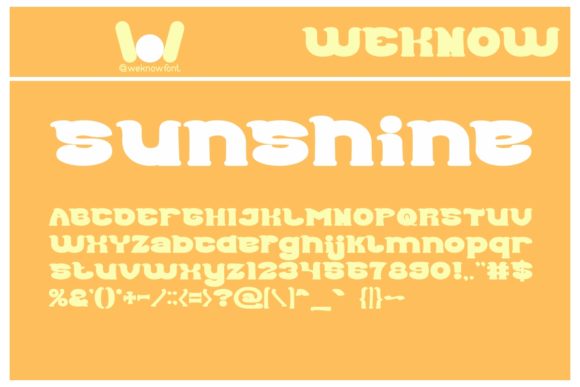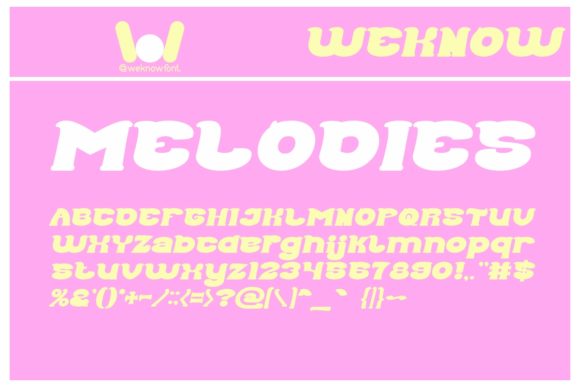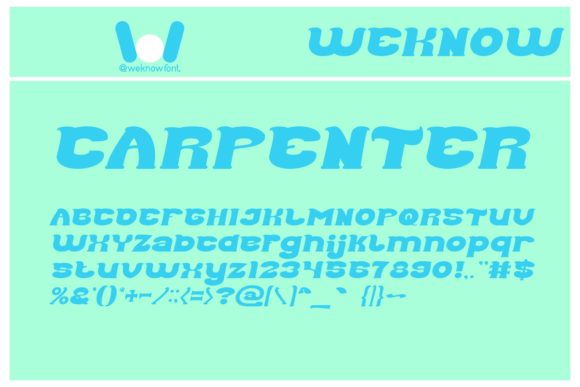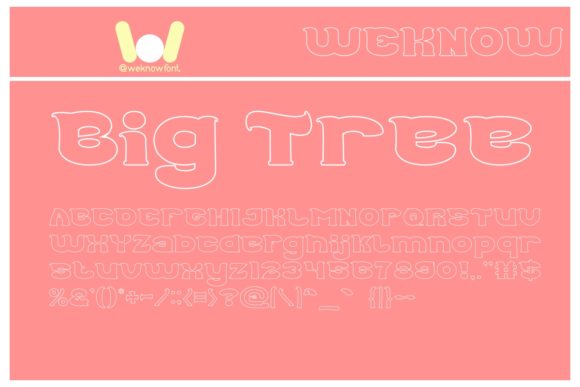
Introducing Good Morning Font: The Ultimate Display Font for Fun and Friendly Designs
Are you tired of using the same old fonts for your designs? Look no further! Good Morning Font is here to shake things up with its chunky lettered, fun, and unique display style. This exciting font is perfect for designers and crafters who want to add a touch of personality to their work. In this article, we’ll dive into the world of Good Morning Font and explore its features, benefits, and uses.
What is Good Morning Font?
Good Morning Font is a display font that boasts a chunky, lettered style that’s sure to grab attention. Its fun and friendly aesthetic makes it perfect for a wide range of design projects, from social media graphics to posters, and even craft projects. The font’s unique style is inspired by the warmth and energy of a good morning, making it an excellent choice for designs that aim to evoke a sense of happiness and positivity.
Key Features of Good Morning Font
- Chunky Lettered Style: Good Morning Font features a bold, chunky lettered style that’s perfect for creating eye-catching designs.
- Fun and Friendly Aesthetic: The font’s fun and friendly style makes it ideal for designs that aim to evoke a sense of happiness and positivity.
- Unique and Quirky: Good Morning Font is a one-of-a-kind font that’s sure to set your designs apart from the rest.
- Easy to Read: Despite its bold style, Good Morning Font is easy to read, making it perfect for use in a variety of design projects.
Benefits of Using Good Morning Font
So, why should you use Good Morning Font in your designs? Here are just a few benefits of this amazing font:
- Adds Personality to Your Designs: Good Morning Font is a great way to add a touch of personality to your designs and make them stand out.
- Perfect for Social Media Graphics: The font’s bold, eye-catching style makes it perfect for use in social media graphics, such as Instagram posts and Facebook headers.
- Ideal for Craft Projects: Good Morning Font is also great for craft projects, such as scrapbooking, card making, and journaling.
- Easy to Pair with Other Fonts: The font’s unique style makes it easy to pair with other fonts to create a cohesive look.
Uses of Good Morning Font
So, what can you use Good Morning Font for? The possibilities are endless! Here are a few ideas to get you started:
- Social Media Graphics: Use Good Morning Font to create eye-catching social media graphics, such as Instagram posts, Facebook headers, and Twitter banners.
- Posters and Flyers: The font’s bold style makes it perfect for use in posters and flyers for events, promotions, and more.
- Craft Projects: Good Morning Font is great for use in craft projects, such as scrapbooking, card making, and journaling.
- Branding and Packaging: The font’s unique style makes it perfect for use in branding and packaging design.
Tips for Using Good Morning Font
Here are a few tips for using Good Morning Font in your designs:
- Use it as a Statement Font: Good Morning Font is perfect for use as a statement font to draw attention to a particular element in your design.
- Pair it with Other Fonts: The font’s unique style makes it easy to pair with other fonts to create a cohesive look.
- Experiment with Colors: Good Morning Font looks great in a variety of colors, so don’t be afraid to experiment and find the perfect hue for your design.